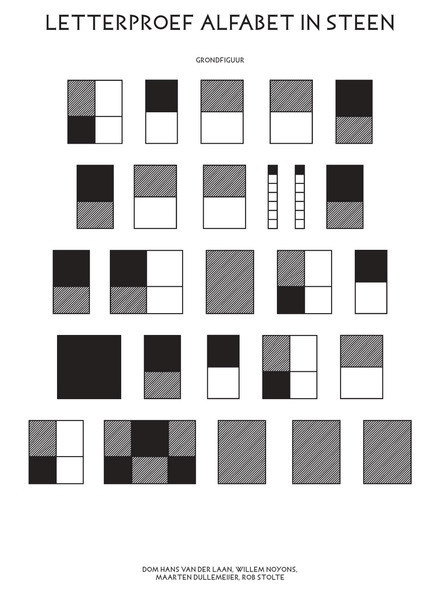
Dom Hans van der Laan (1904 – 1991) was a Dutch Benedictine monk and architect. He was a leading figure in the Bossche School. His theories on numerical ratios in architecture, in particular regarding the plastic number, were very influential. Van der Laan was not interested in the dimensions of the spaces themselves, but in what the proportions of dimensions brought about in humans. Design studio Autobahn, together with spatial designer Willem Noyons, developed a digital version of the Alphabet in Stone by Van der Laan, also based on these proportions.